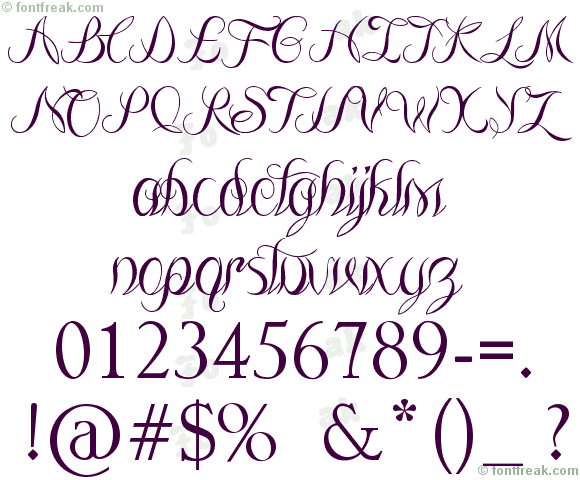
The Lodger Rang
The Lodger Rang is an elegant script font designed by Jonathan S. Harris, classified as a display typeface. This font stands out with its sophisticated, flowing lines and graceful curves that exude a sense of artistry and refinement. The stroke weight is variable, creating a beautiful contrast that enhances its calligraphic style. The delicate flourishes and decorative elements add a touch of whimsy, making it perfect for projects that require a personal, artistic touch.
This versatile font can be used effectively in a variety of contexts. It is ideal for wedding invitations, where its romantic flair can beautifully complement formal announcements. Additionally, The Lodger Rang works well for restaurant menus, lending an air of sophistication to the dining experience. Its captivating style makes it suitable for movie posters, particularly in genres that embrace elegance and artistry. Small business owners can also benefit from using this font for branding materials, as it conveys a unique identity that can attract customers.
What sets The Lodger Rang apart is its ability to blend modern elegance with traditional calligraphic elements, making it a striking choice for those looking to elevate their designs. With its artistic flair and versatility, The Lodger Rang font free download is an excellent addition to any designer's toolkit, ensuring that projects leave a lasting impression.